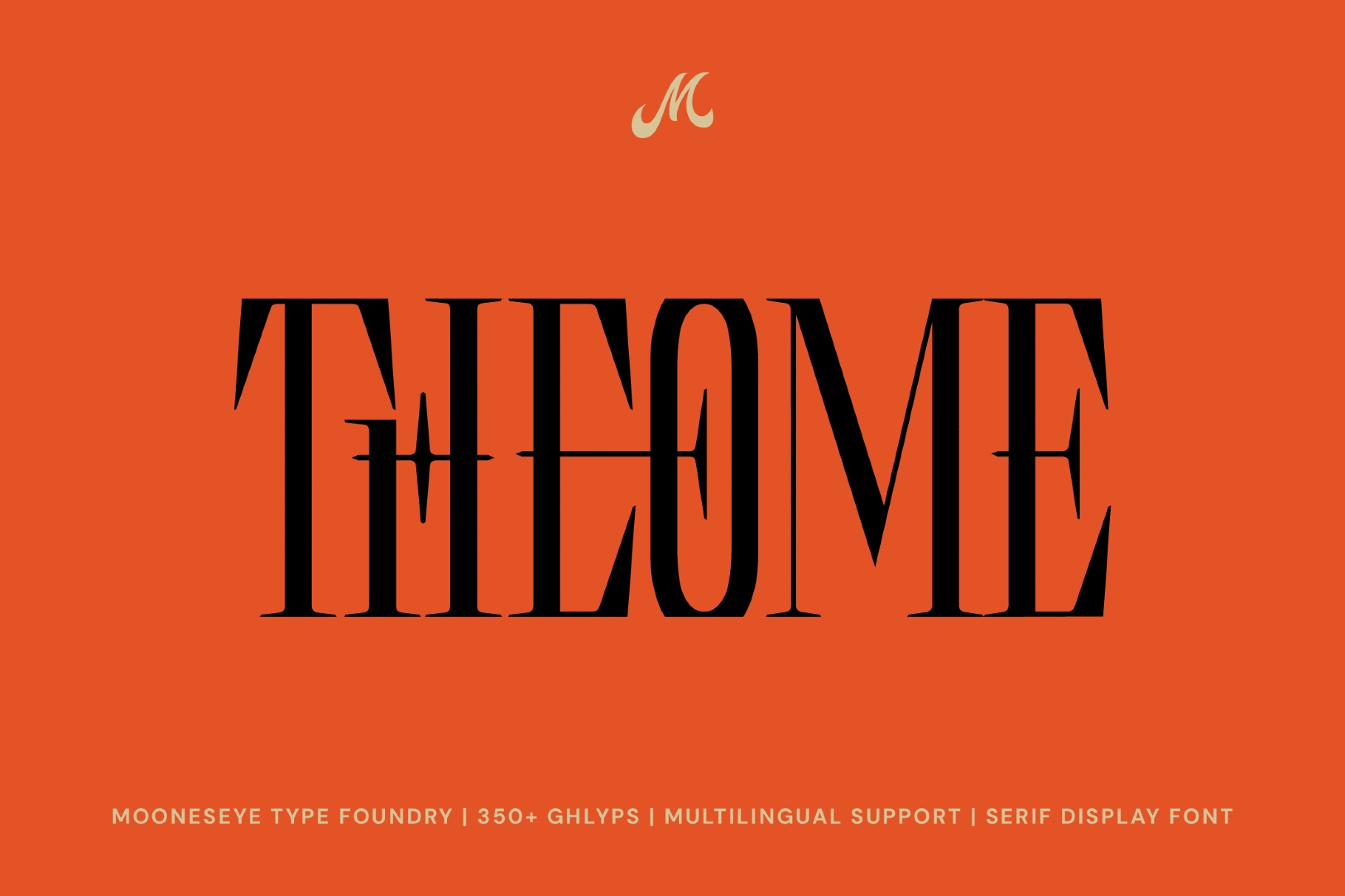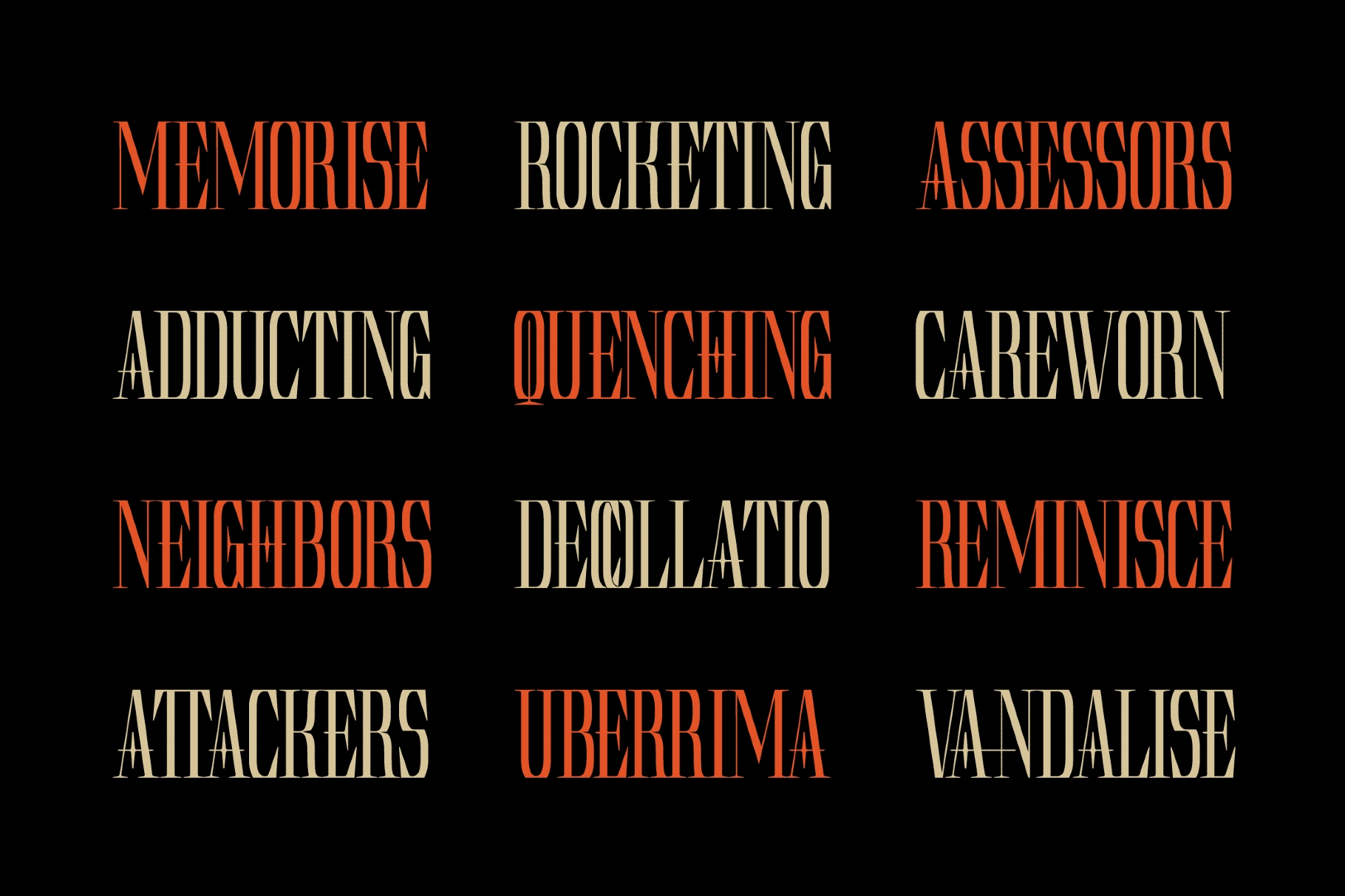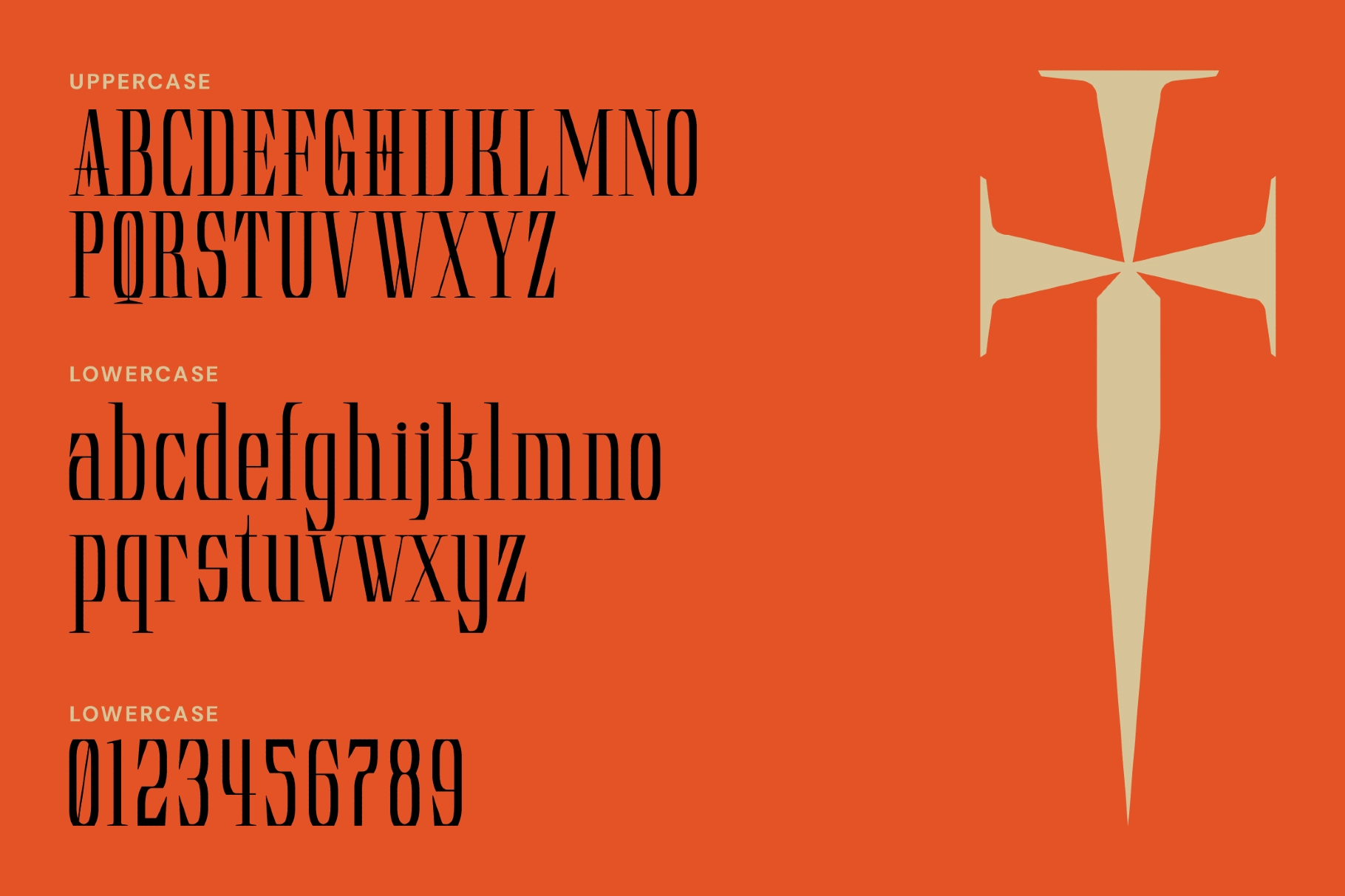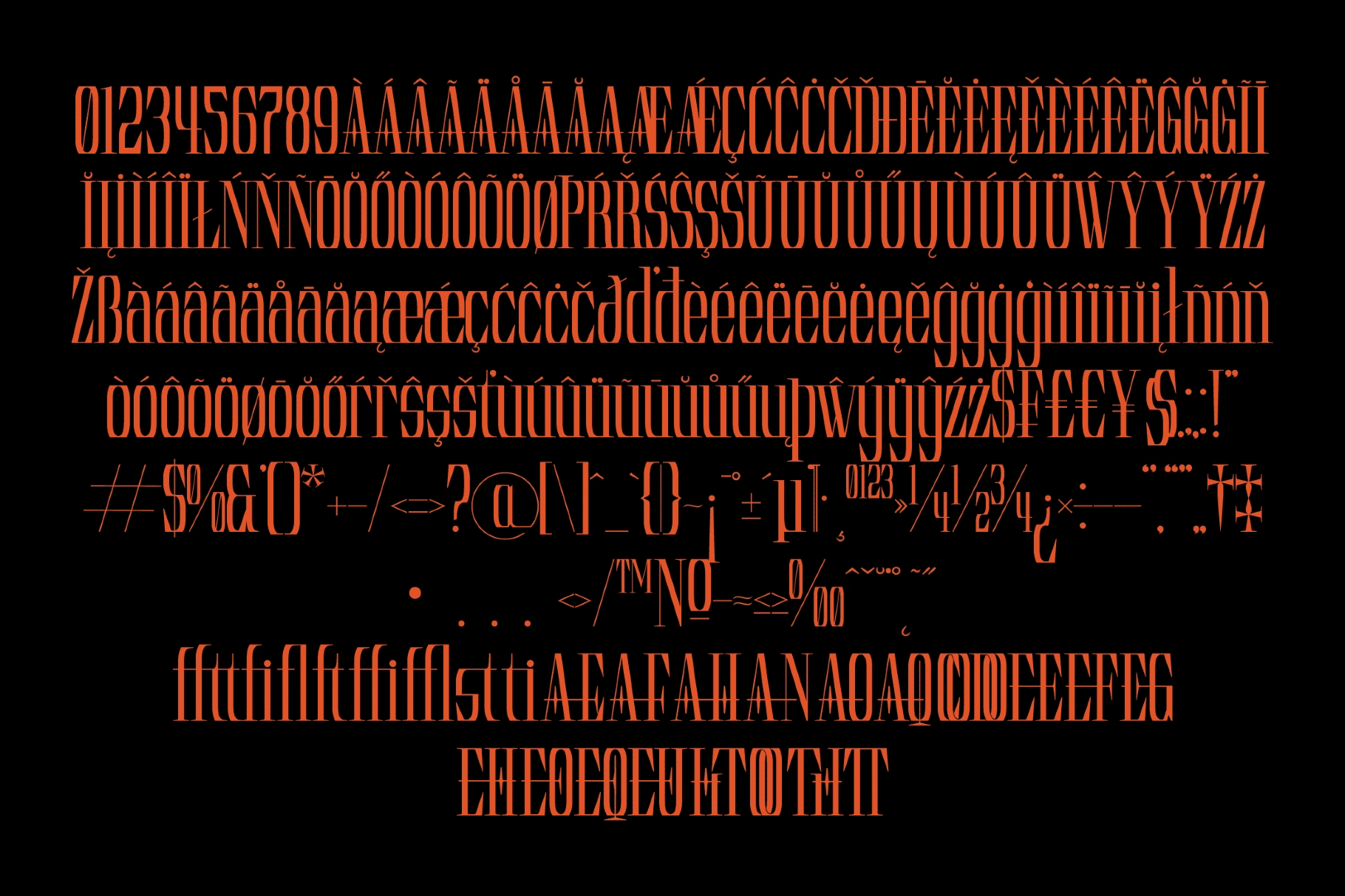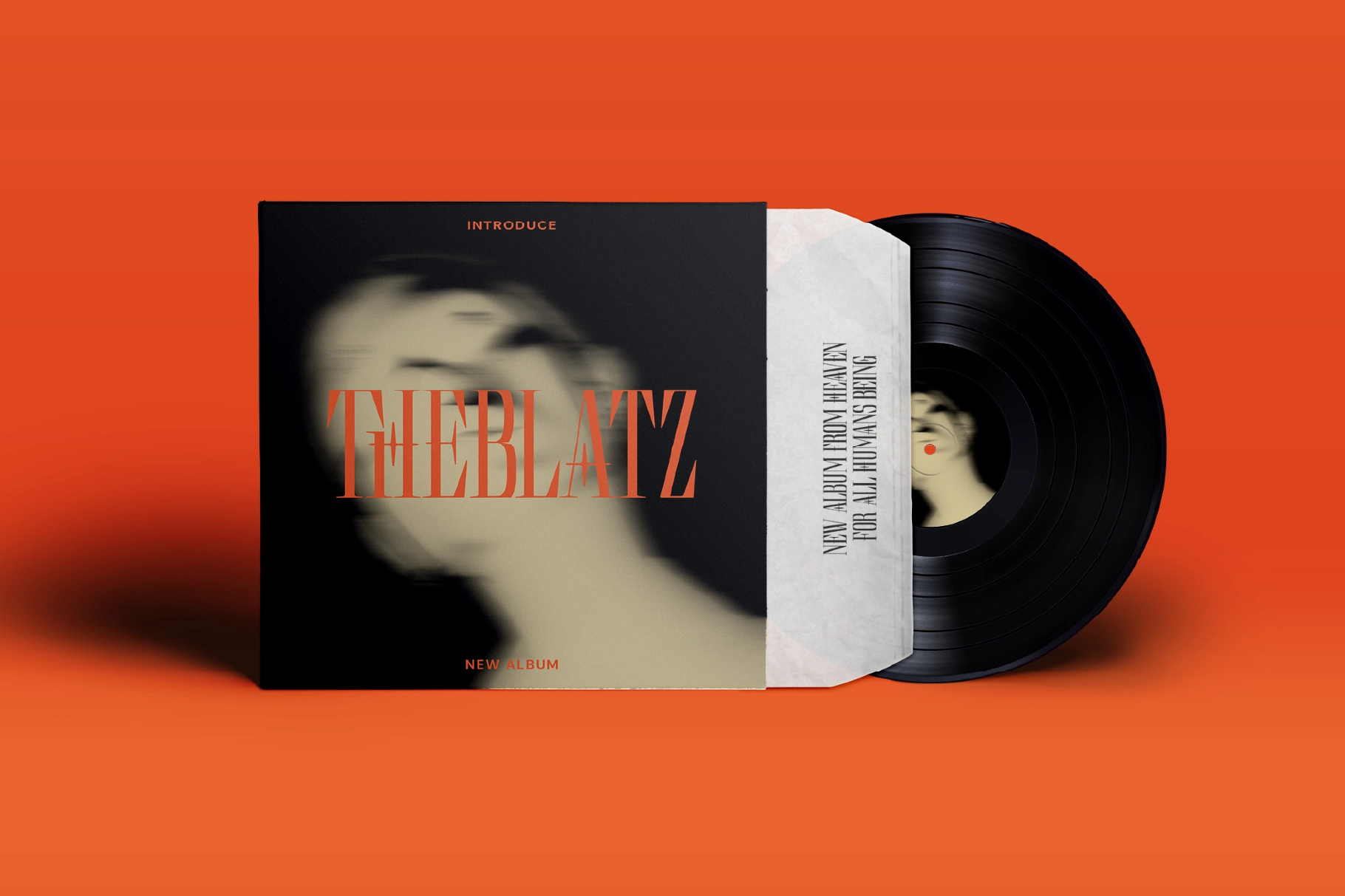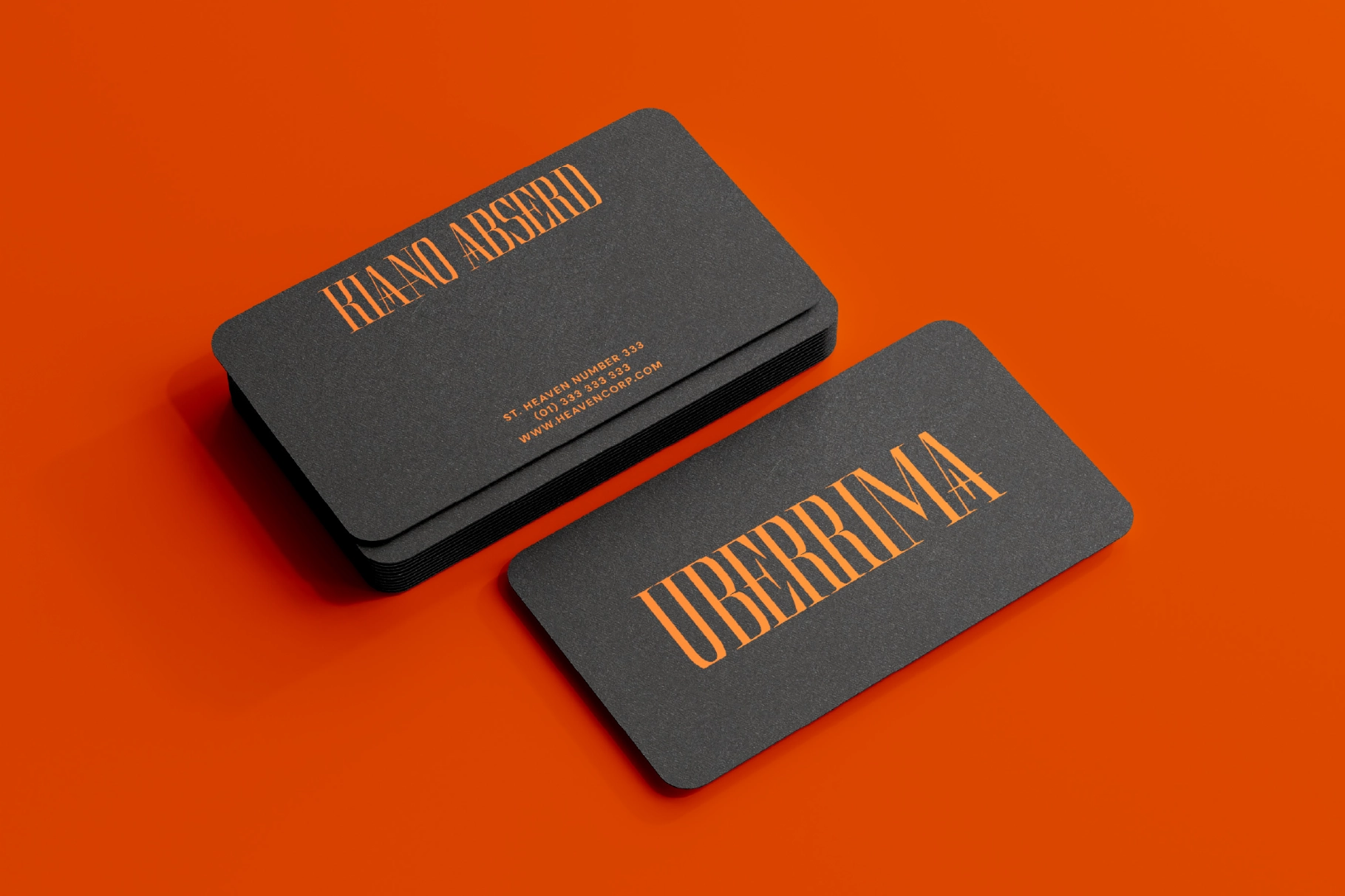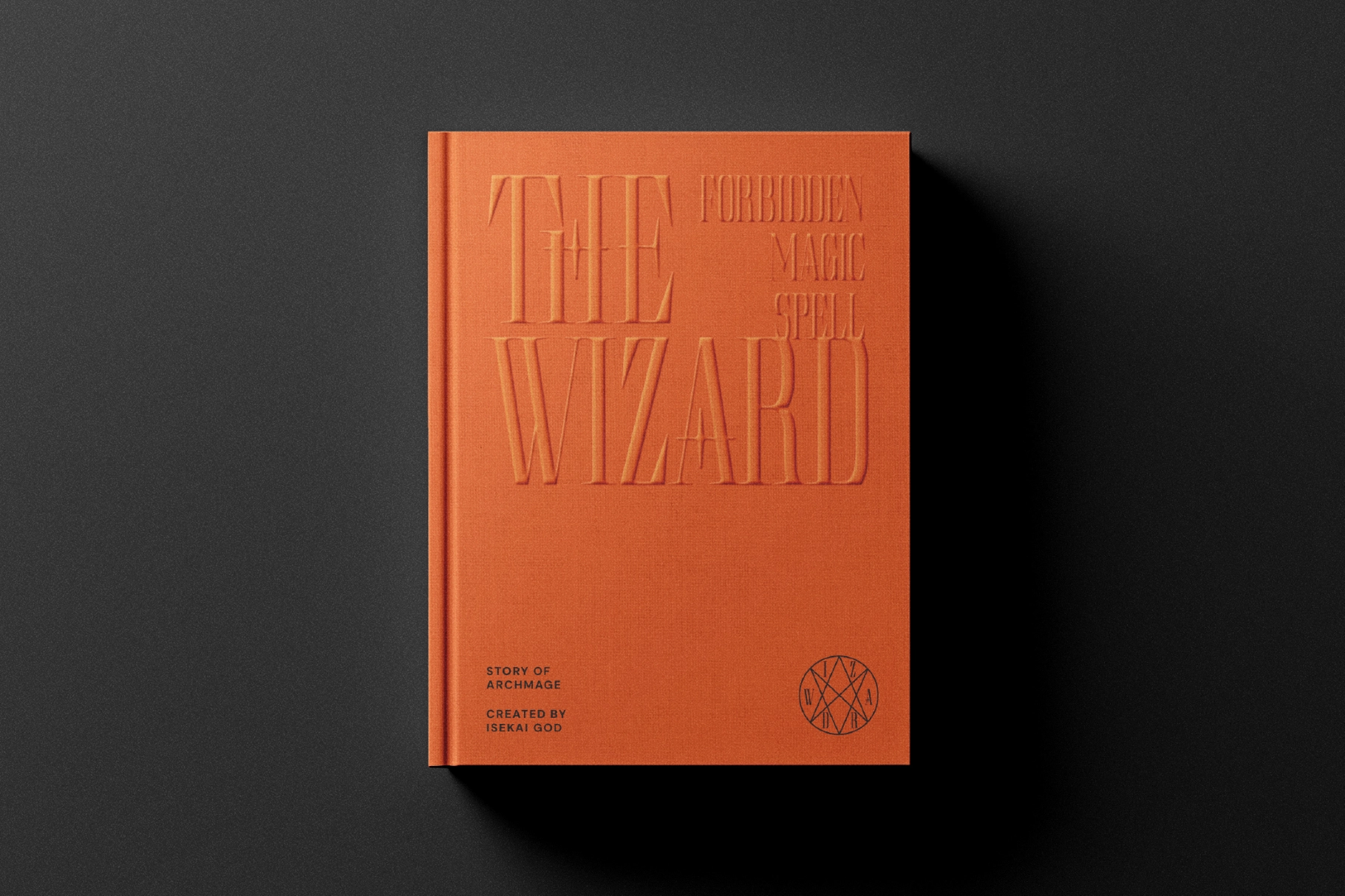
Theome - Gothic Serif Display Font
This gothic display serif has condensed proportions, sharp serifs, high-contrast strokes, and tall vertical forms that give every headline a dramatic editorial edge. Its experimental ligatures add a custom logo quality, with nested joins and ornamental cuts that suit dark luxury visuals, fashion branding, and bold poster work.
Theome works well for high-end logos, fashion editorials, streetwear drops, album covers, perfume packaging, tattoo studio branding, boutique identities, magazine titles, event posters, art prints, dramatic social media graphics, book covers, and merch designs. The full character set includes uppercase, lowercase, numbers, punctuation, multilingual glyphs, and webfont formats for print and digital use.
- Uppercase & lowercase
- Experimental ligatures
- 350+ glyphs
- Numbers & punctuation